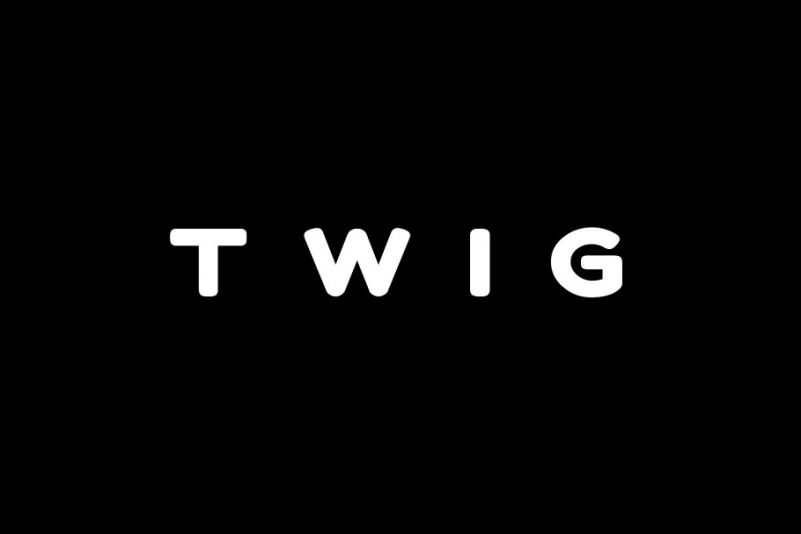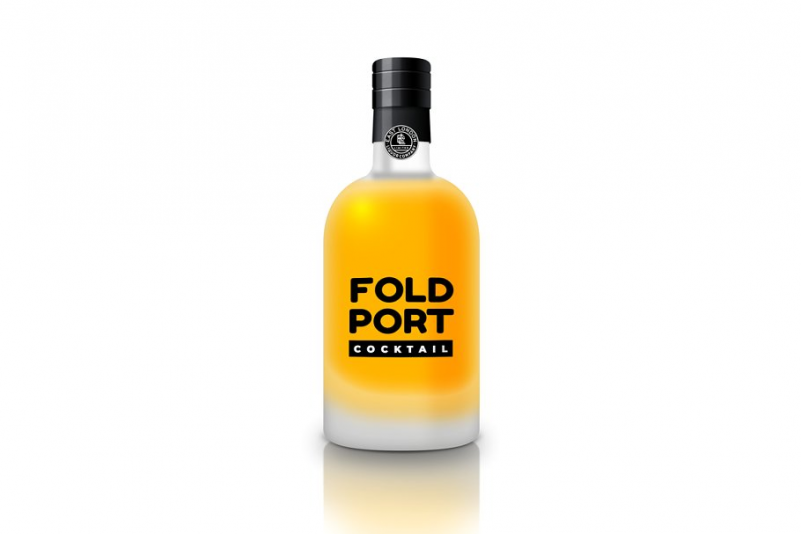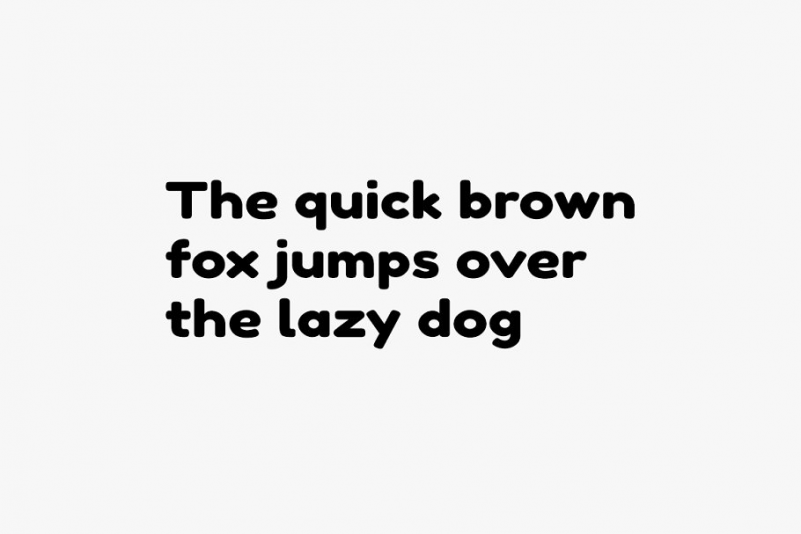
TWIG Font
TWIG is a simple cute typeface for headlines, big text, branding, logotypes & display usage. This font is also perfect for creating outstanding logos, promotional content and marketing graphics that can really grab attention from your visitors. Please see the examples shown above to get an idea about the capability of this typeface.